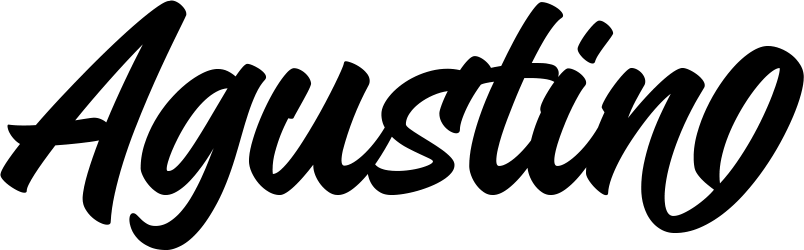
Agustin Font
You don’t need to go into so much trouble for creating new content you can bring an artistic vibe to them with just a brush font. With that said we offer you Agustin which can be a great choice for projects like posters, flyers, movie titles, logos, and packaging.
This font comes with a fantastic collection of characters that contains the uppercase of the alphabets, the numbers, and the punctuation marks.